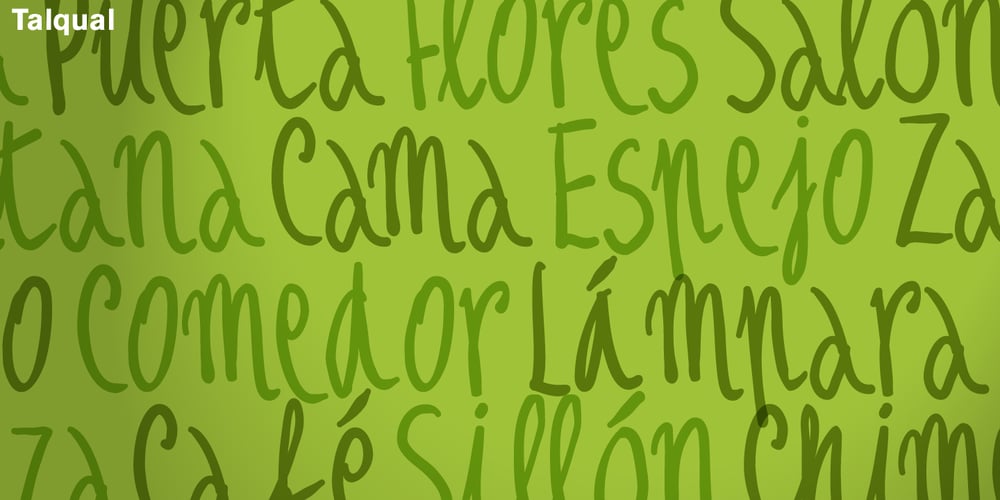
Talqual
Talqual font
Talqual Font Family was designed by Joan Barjau and published by Type-Ø-Tones. Talqual contains 1 styles and family package options. Sometimes work done in a rush survives and gets better and better. This is the case of Talqual, a Joan Barjau handwriting font straight from the strokes made with a Wacom tablet while listening to a Barça football match on the radio.